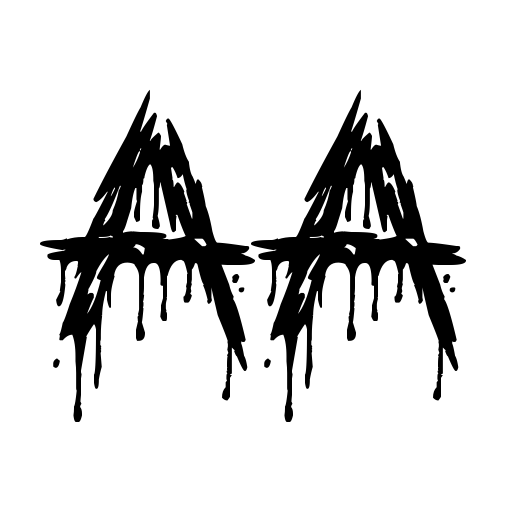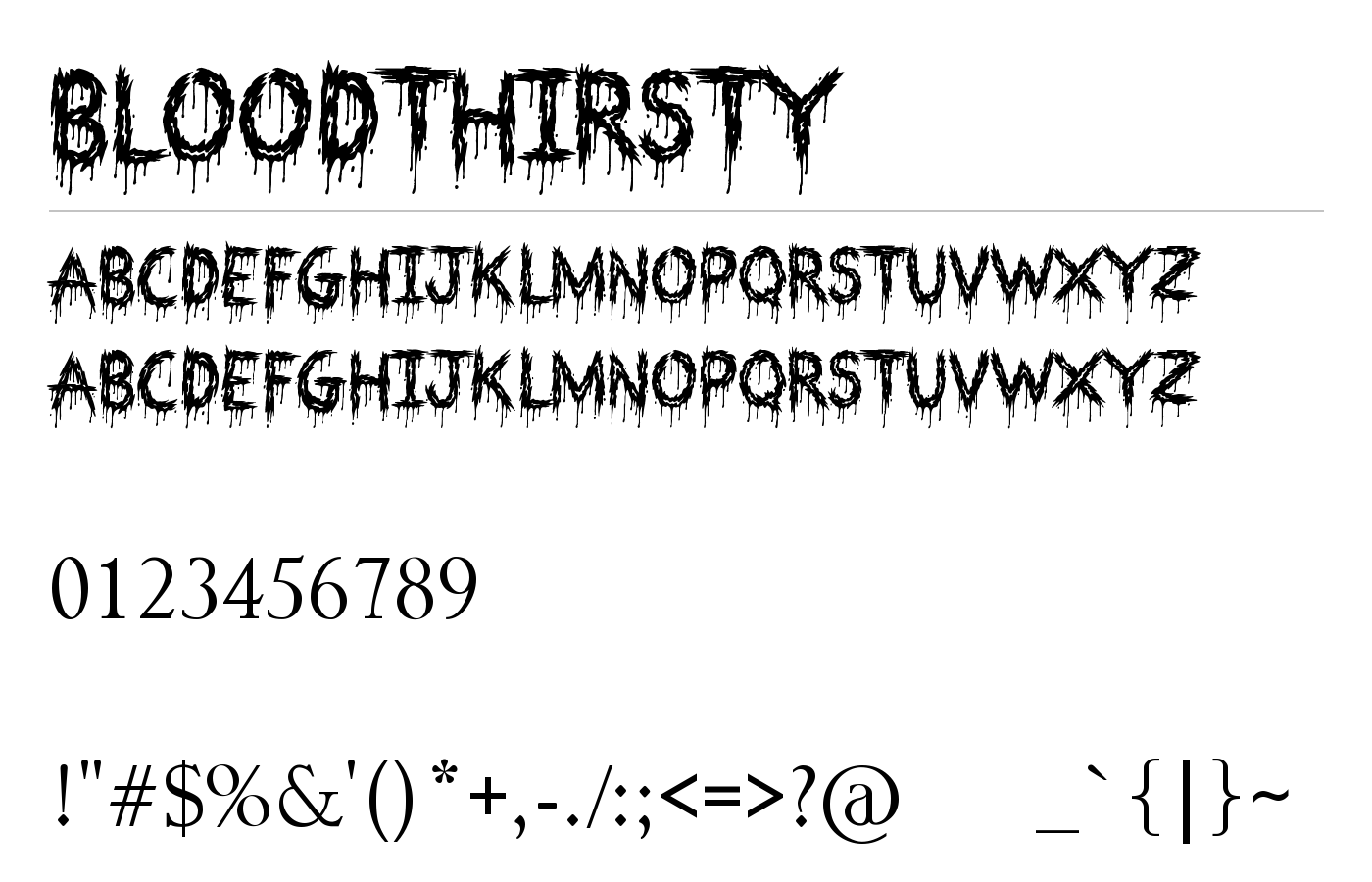
Bloodthirsty is a bold, display sans serif font that features jagged, dripping letterforms evoking a spooky, horror-themed vibe. Its highly stylized, rough edges and uneven strokes create a dramatic, eerie look perfect for eye-catching headlines, Halloween designs, or any project seeking a sinister and playful mood. This font works best in large sizes where its details can shine, adding a touch of dark thrill to posters, logos, and themed event materials.
Bloodthirsty Font
About Bloodthirsty Font